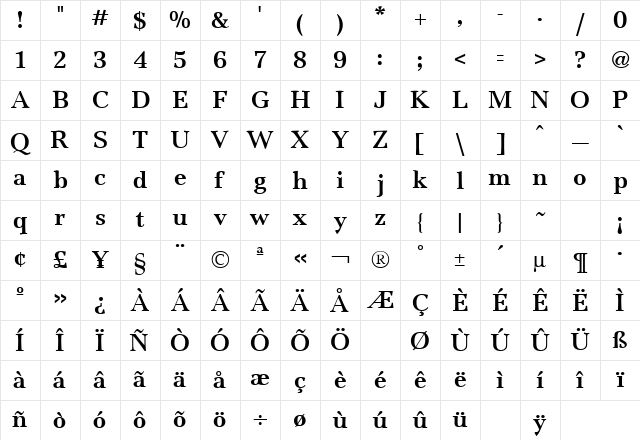
Jamille Bold Free Font
Jamille Bold
Design Context for Jamille
Jamille is a composed and adaptable typeface that performs quietly and consistently across a wide range of design contexts. Its bold stroke weight gives it real presence on the page.